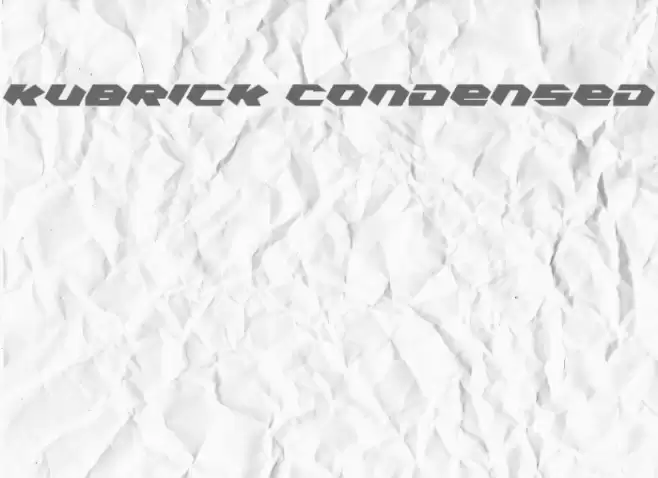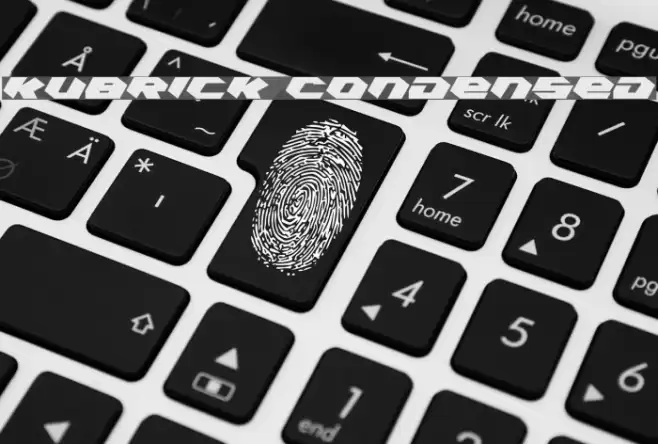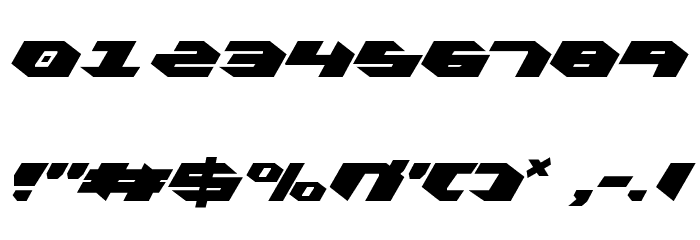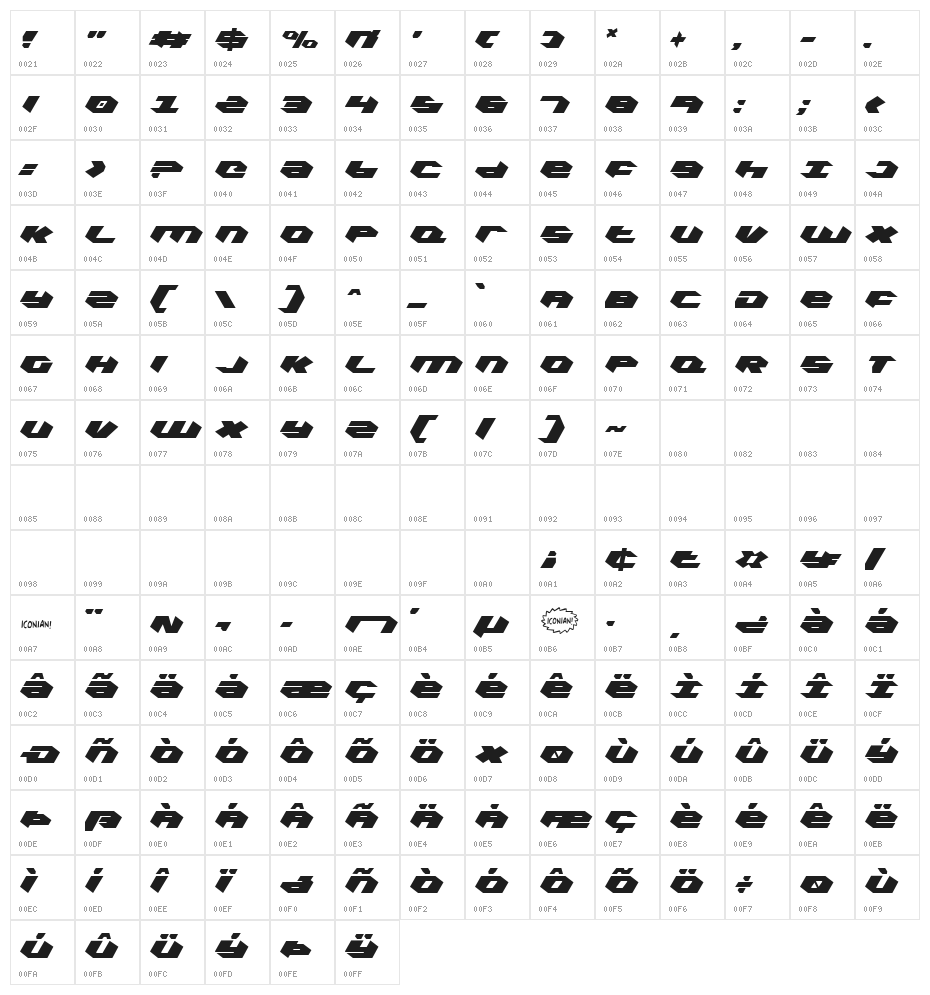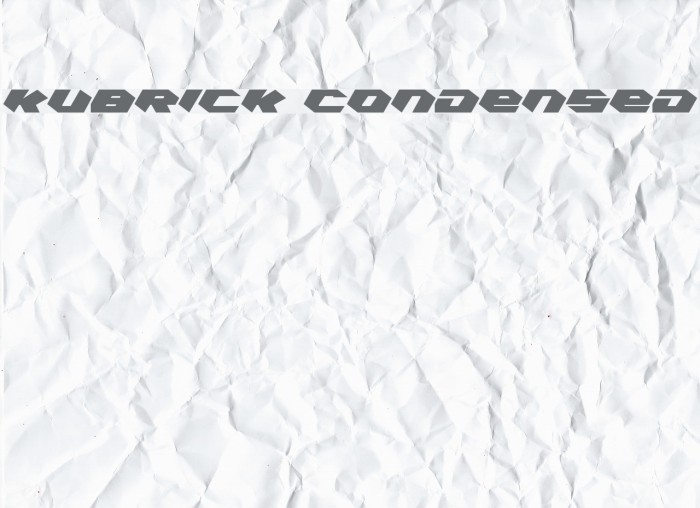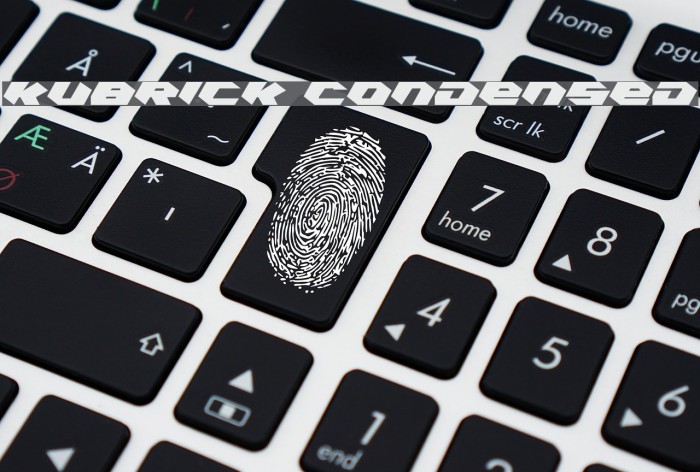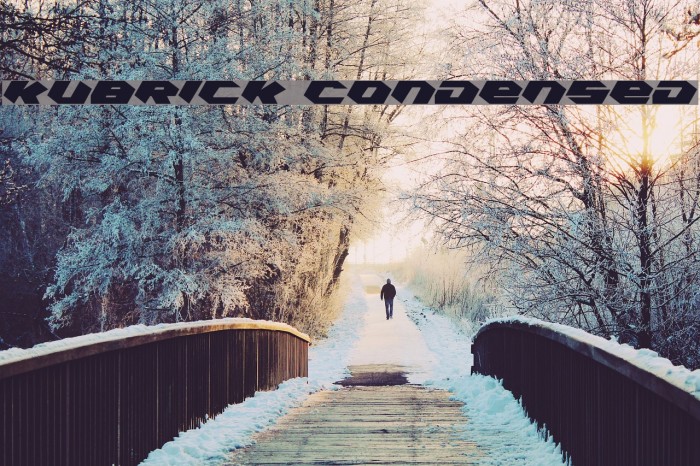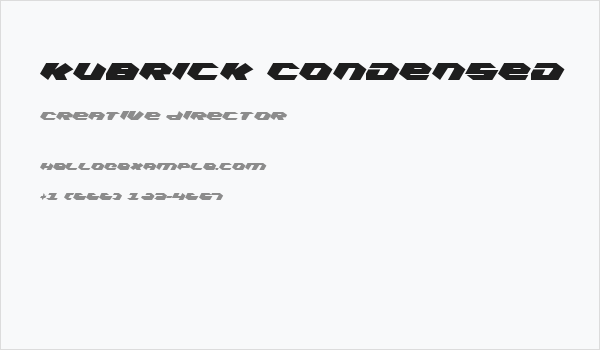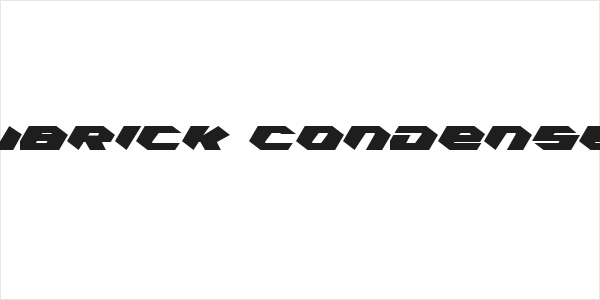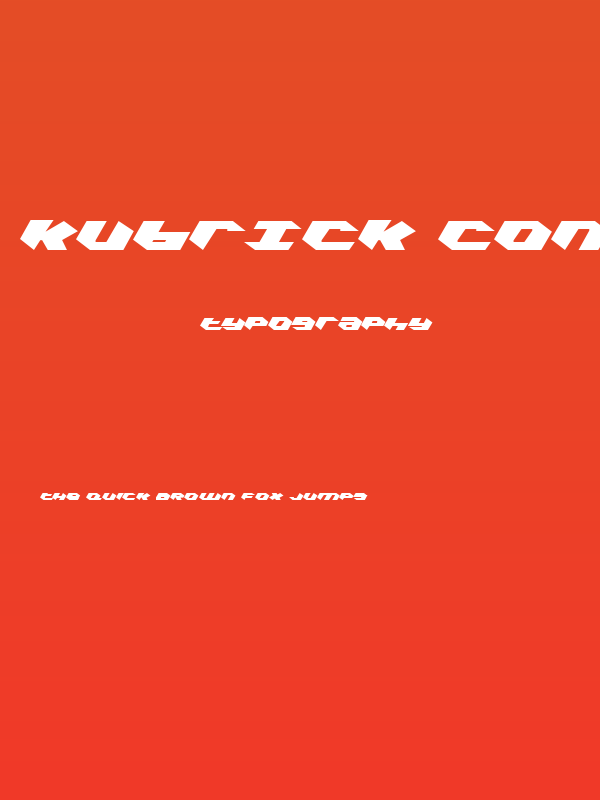
Kubrick Condensed Font
Kubrick Condensed Description
This font features a bold, geometric design with sharp angles and a futuristic aesthetic. The characters are condensed, giving a compact appearance that enhances its modern and edgy style. Each letter is crafted with precision, showcasing a unique blend of angular cuts and solid forms. The uppercase and lowercase letters maintain a consistent design language, while the numerals and special characters complement the overall look. This font's distinct style makes it stand out, offering a dynamic and impactful visual presence.
A bold, geometric font with a futuristic and condensed design from Uncategorized fonts.
- Proposed Projects: Ideal for sci-fi themed projects, modern branding, posters, and digital interfaces.